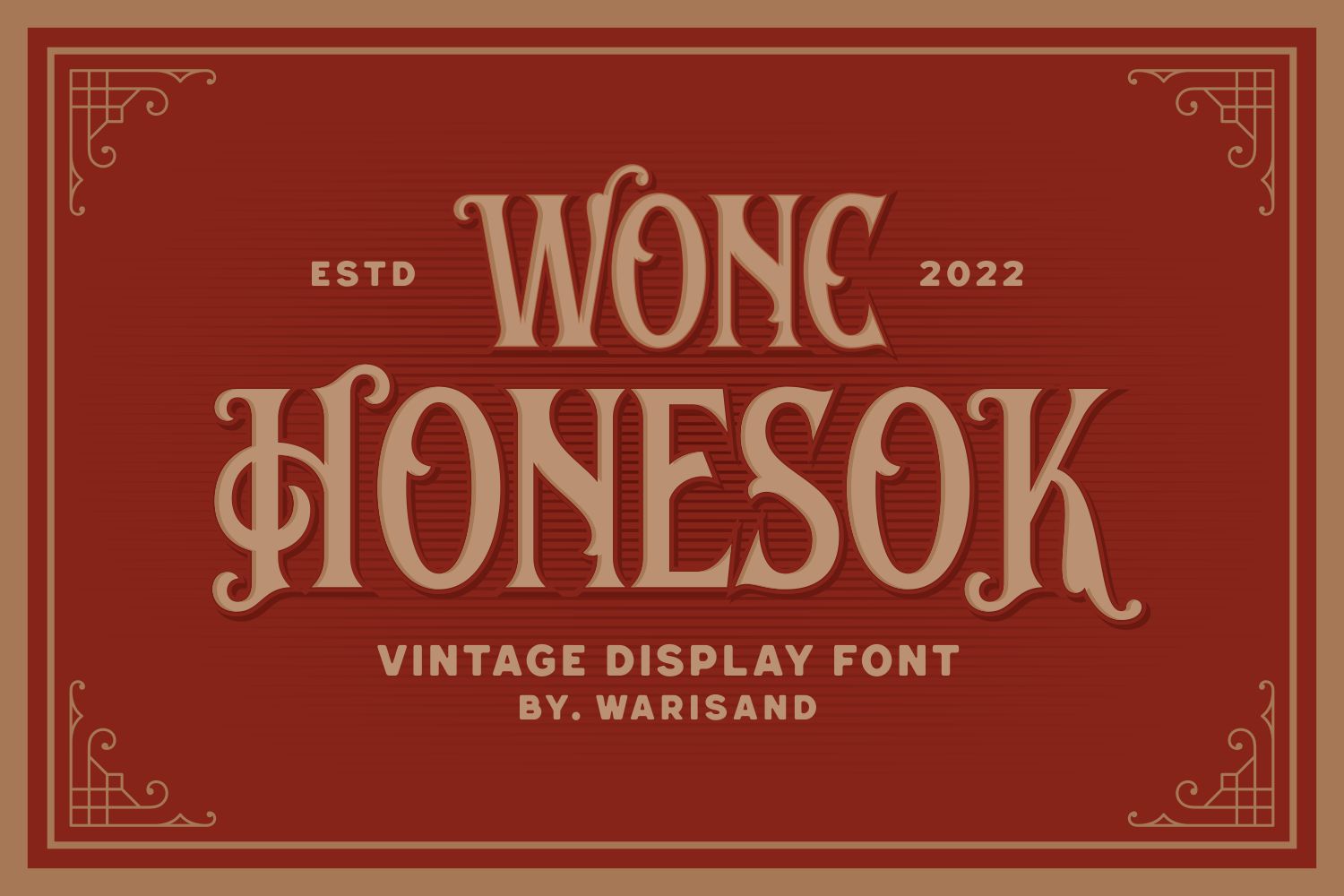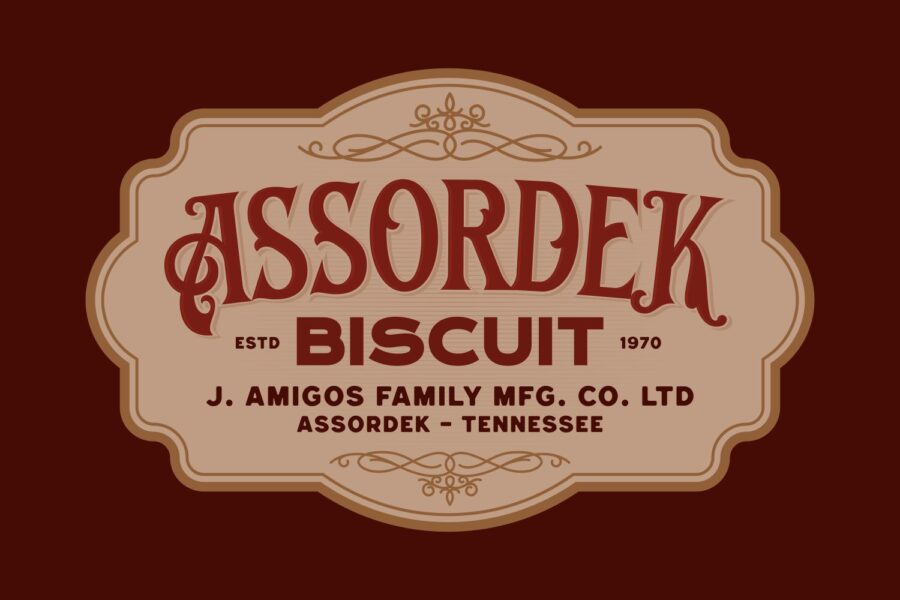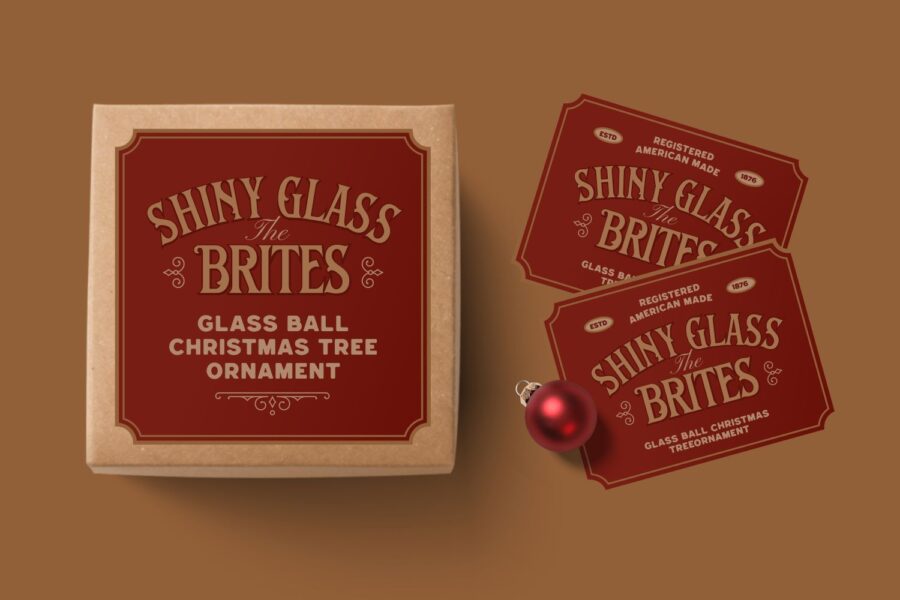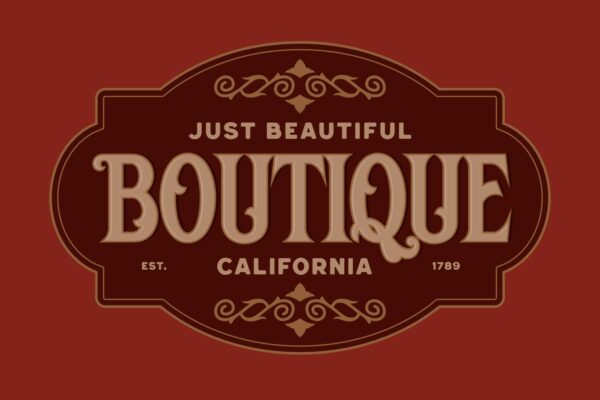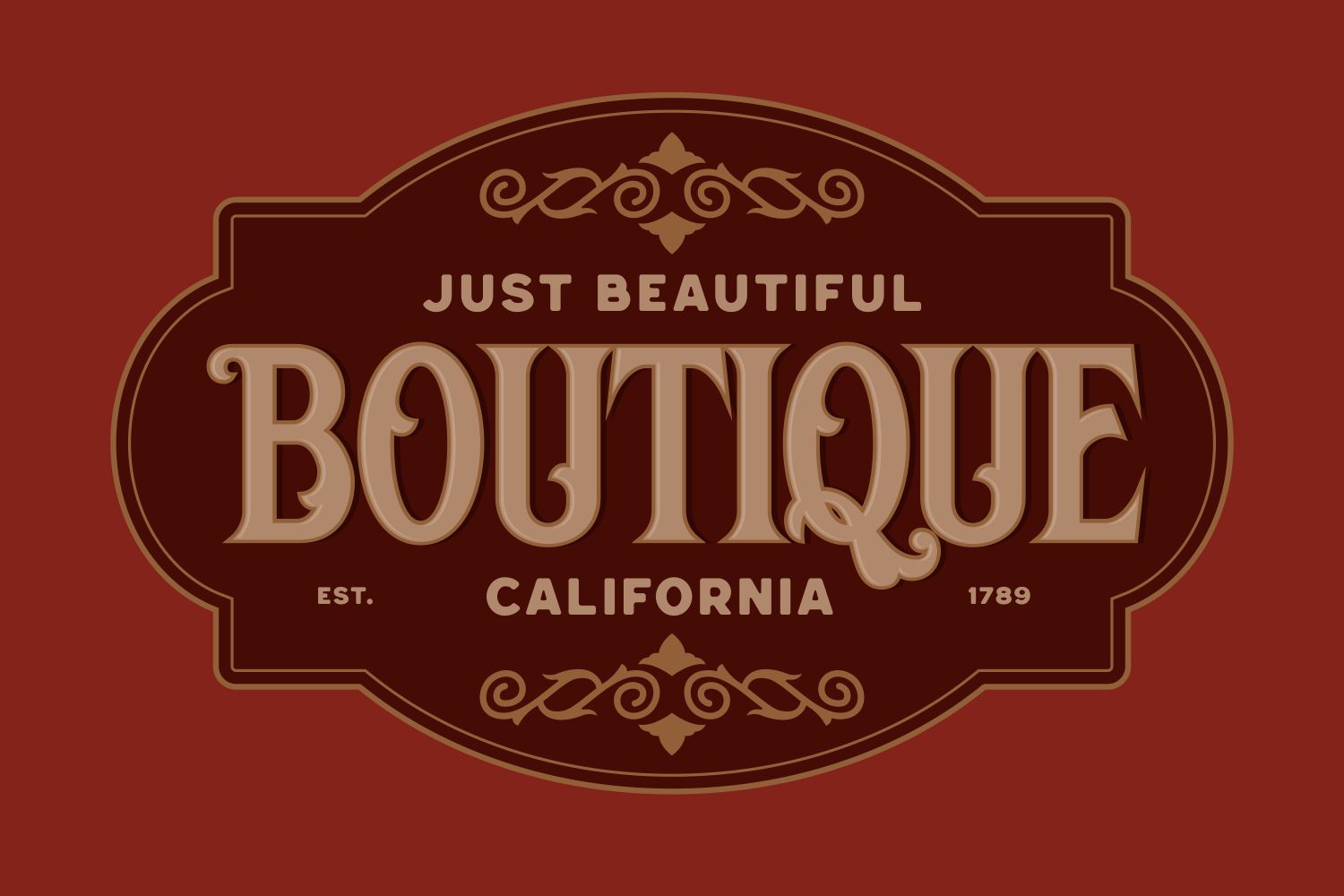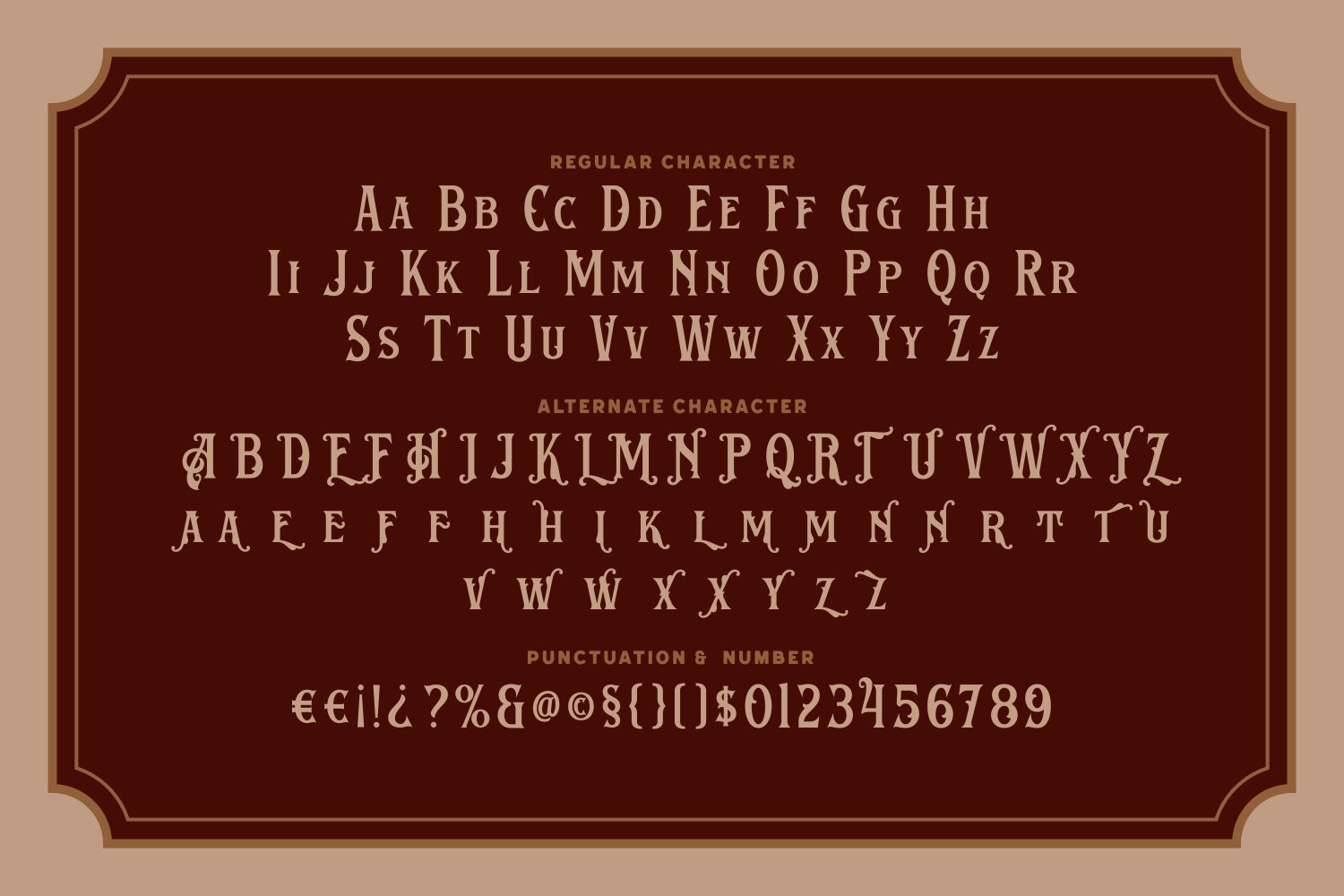
Wonc Honesok is a vintage display font that blends bold character shapes with elegant, classic styling. Featuring sharp serifs, strong vertical contrast, and ornamental curves, this font evokes the spirit of antique packaging, heritage branding, and early 20th-century sign lettering. Its nostalgic yet distinctive personality makes it an excellent choice for designs that aim to feel both historical and memorable.
Equipped with a full set of uppercase, lowercase, punctuation, numerals, and an impressive array of alternate characters, Wonc Honesok allows for creative typographic compositions. Perfectly suited for logos, labels, posters, merchandise, and decorative branding, this typeface adds charm and authenticity to any vintage-themed project.
Wonc Honesok